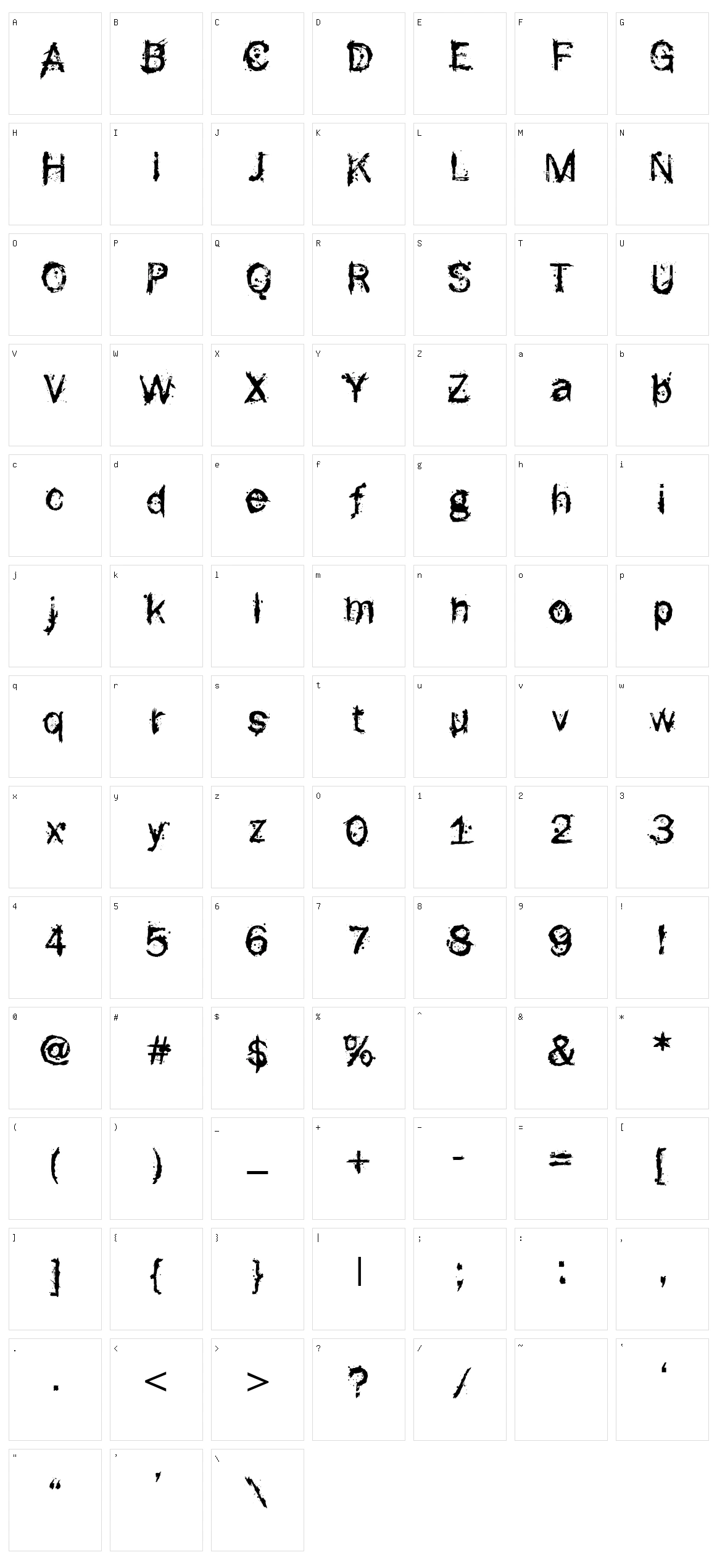
The free font F-Rotten is carefully designed by Guido Piccione, showcasing a thoughtful balance of creativity and usability and falls under the Destroy font style. When you download the ZIP file, it contains only 234.88 KB of font files, making it lightweight and quick to download. Please review the license details below to understand permitted usage and distribution rights. If license information is not available, we recommend using this font for personal projects only or contacting the author directly for commercial usage permissions.